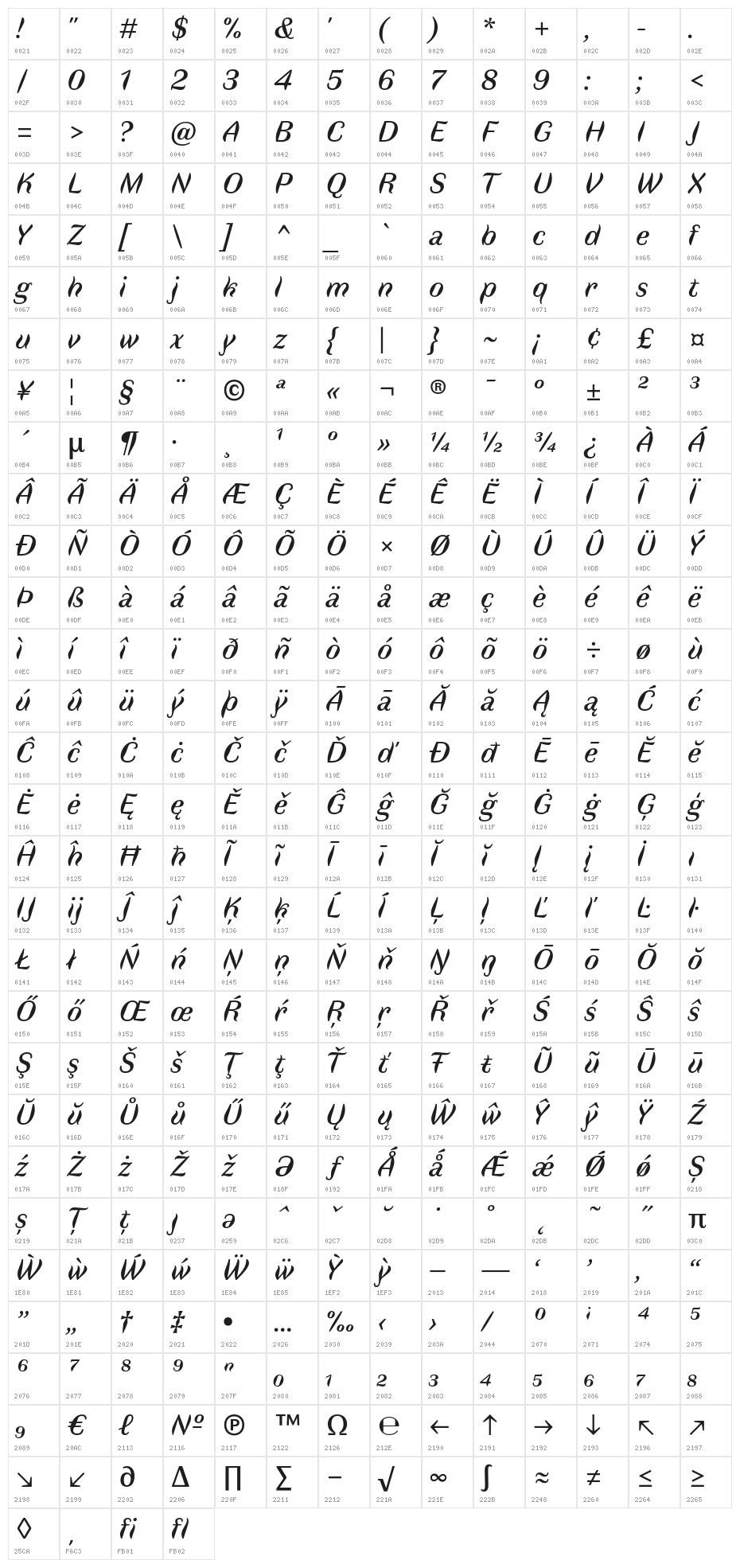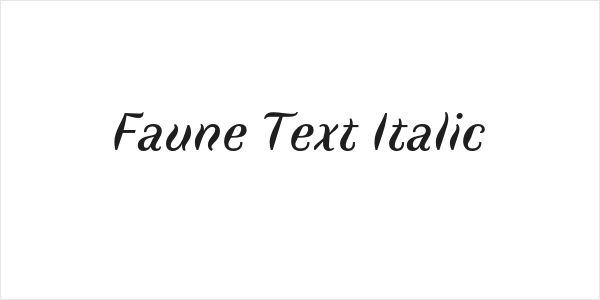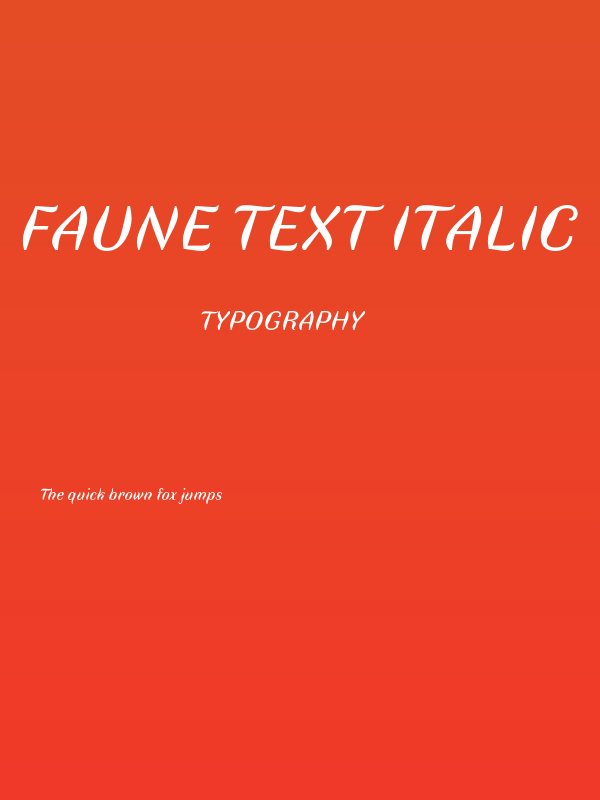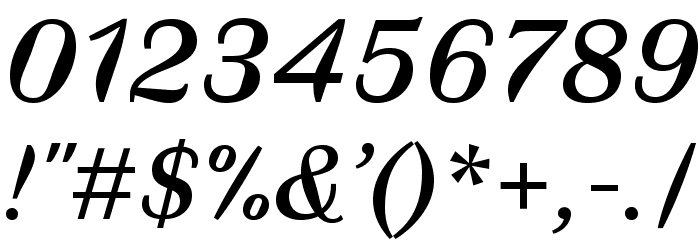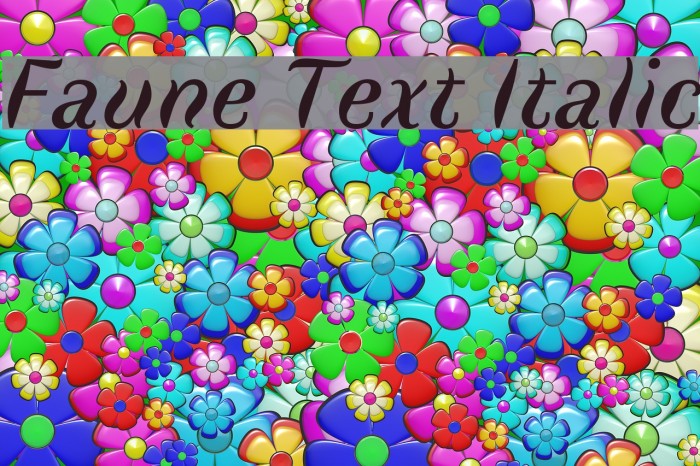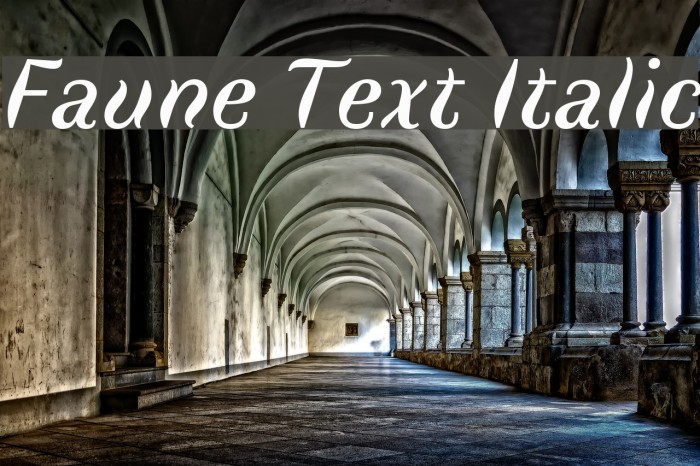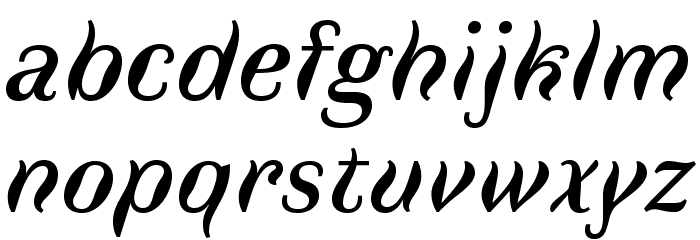
Faune Text Italic Font
Faune Text Italic Description
This font exhibits a graceful and flowing style, characterized by its italicized form. The letters are elegantly slanted, giving a sense of movement and fluidity. The strokes are moderately thick, providing a balanced contrast that enhances readability while maintaining a sophisticated appearance. The uppercase letters are distinct and bold, while the lowercase letters have a charming, cursive quality. The numerals are clear and consistent with the overall style, making them easy to read. Special characters are well-integrated, maintaining the font's cohesive look. This font is ideal for projects that require a touch of elegance and style.
| Use Case | Headlines, Invitations, Branding |
| Proposed Projects | Ideal for wedding invitations, elegant branding, and stylish editorial design. |